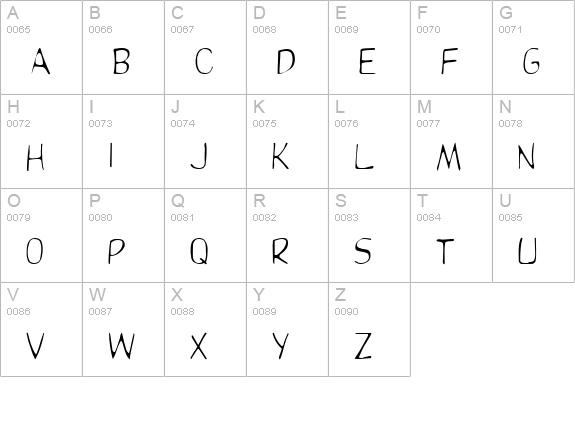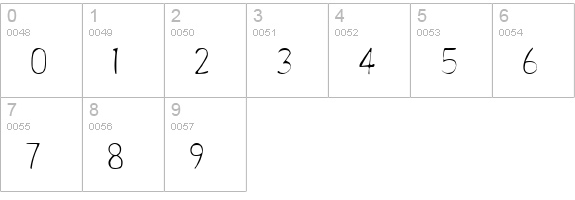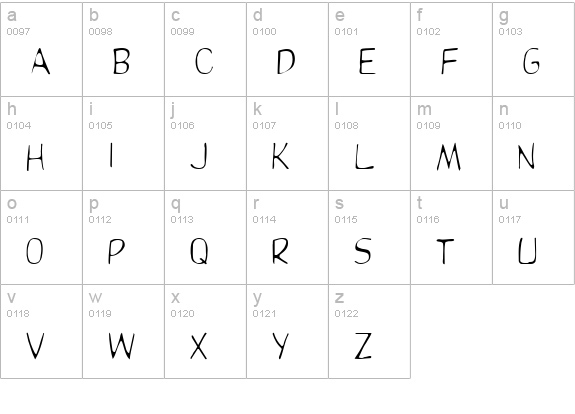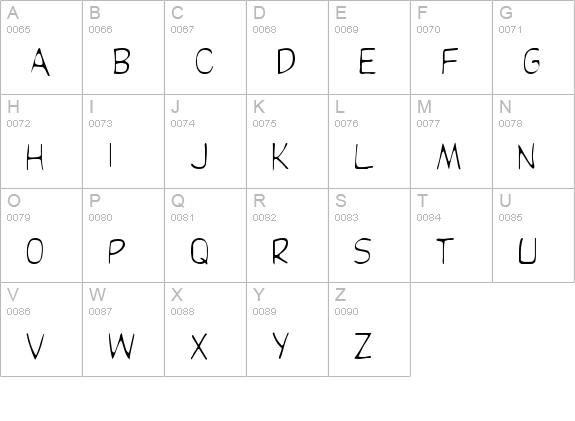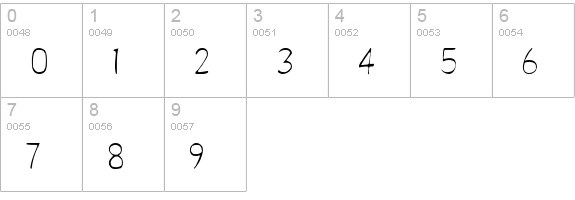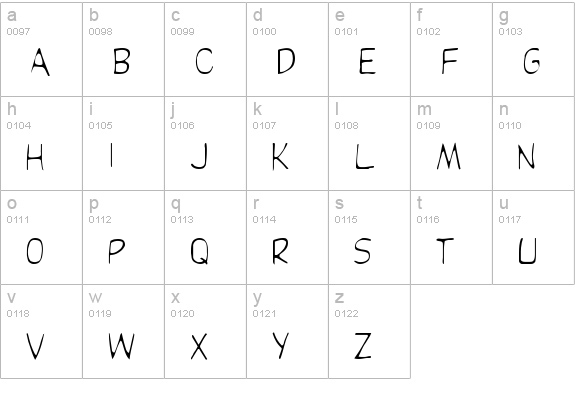
DupuyLight Regular Font Details
DupuyLight Regular is the standard, neutral variant in the DupuyLight typeface family \xE2\x80\x94 well suited to general body text, paragraphs, and standard typographic work.
DupuyLight Regular is a timeless and elegant font that exudes sophistication and charm. Its clean lines and classic design make it perfect for a wide range of projects, from formal invitations to professional documents. The font's subtle curves and balanced proportions create a sense of harmony and refinement, making it a versatile choice for any design need. What makes DupuyLight Regular even more appealing is that it is available for free download at FontsMarket.com. This means that you can easily access this high-quality font without breaking the bank, making it a valuable addition to any designer's toolkit. Whether you're working on a personal project or a client's commission, DupuyLight Regular is sure to elevate your work with its understated elegance and timeless appeal. Download it today and see for yourself the impact this beautiful font can make on your designs.